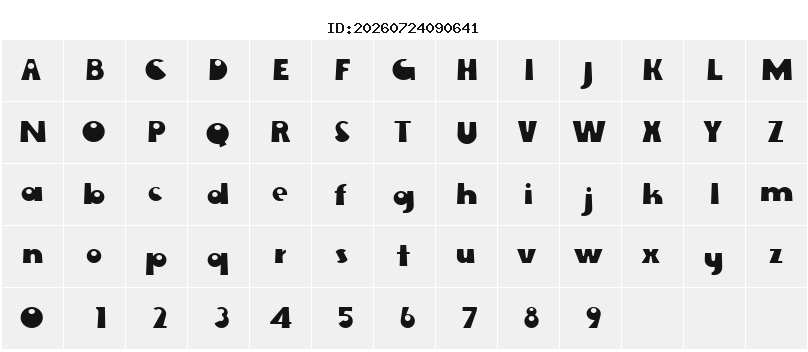
EwieD Preview
• Font Name: EwieD
About EwieD.ttf
EwieD.ttf is a modern, elegant sans-serif font designed for ultimate readability and visual harmony. Perfect for branding, headlines, web design, and print materials.